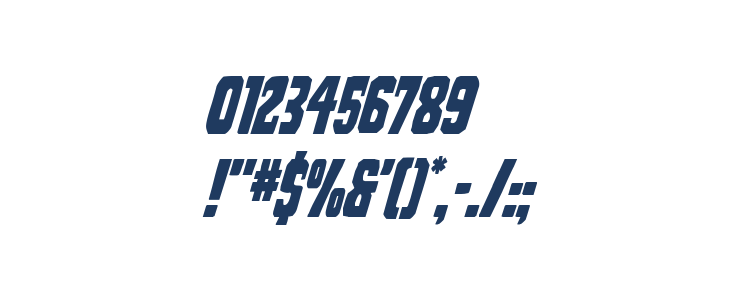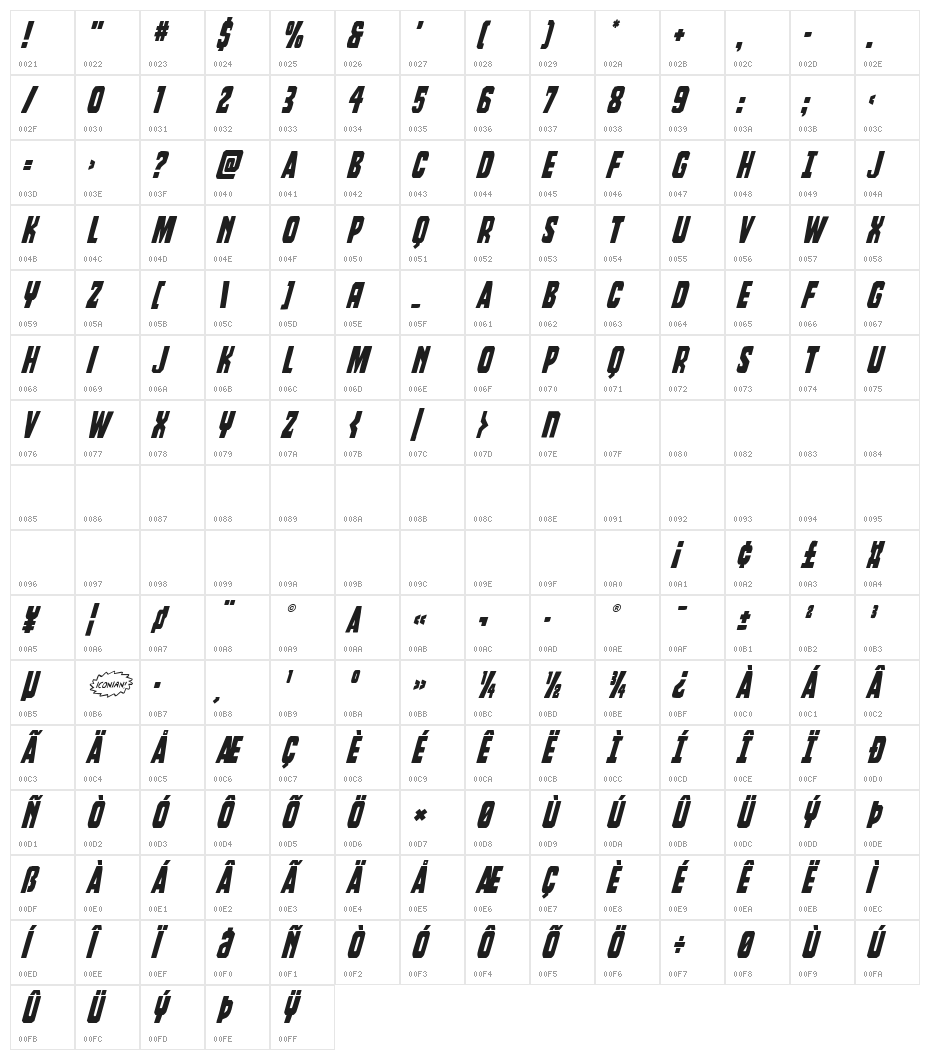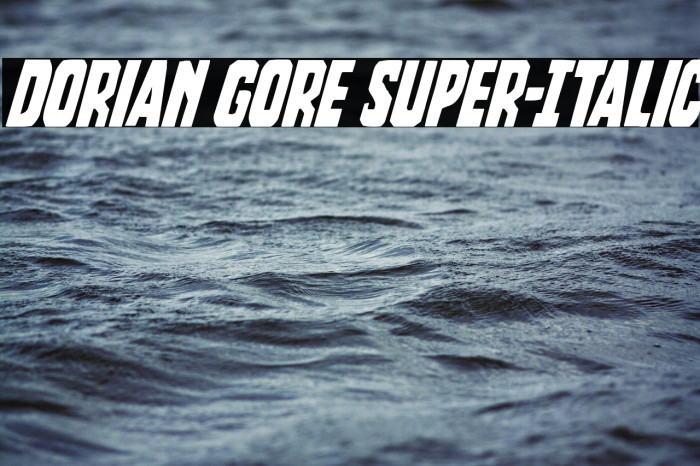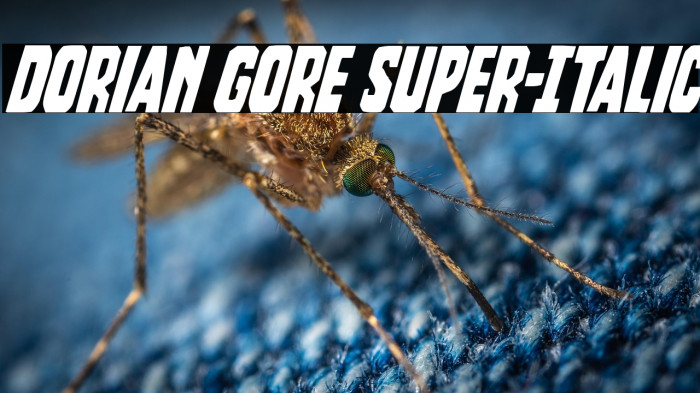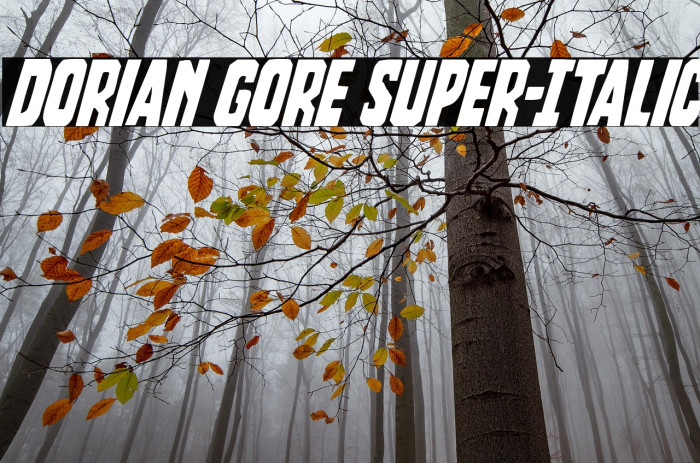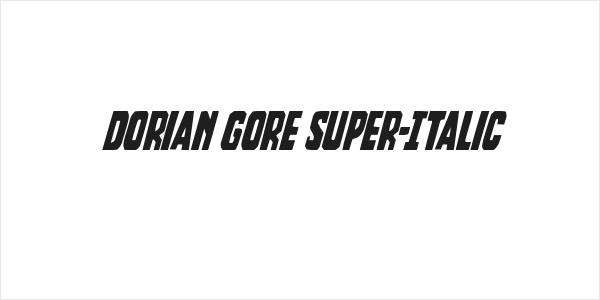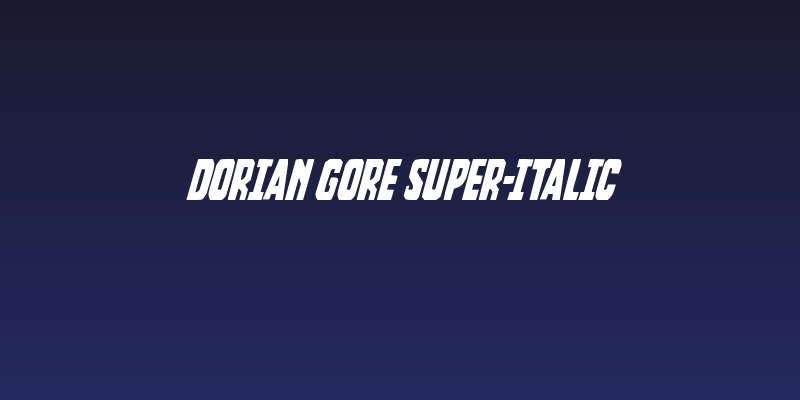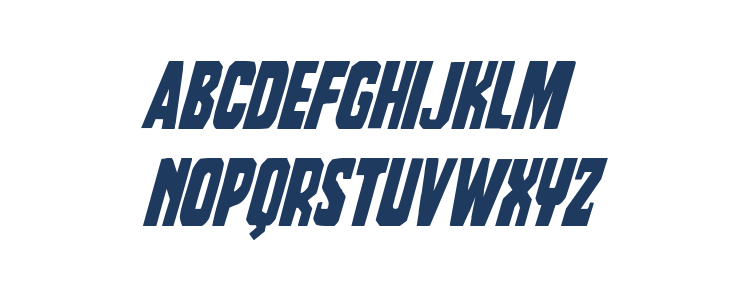
Dorian Gore Super-Italic Font
Dorian Gore Super-Italic Description
This font features a bold and dynamic style with a strong italic slant, giving it a sense of motion and energy. The characters are thick and robust, with sharp angles and a slightly condensed form that enhances its impactful appearance. The uppercase and lowercase letters maintain a consistent style, while the numerals and special characters complement the overall design. The font's boldness and slant make it ideal for attention-grabbing headlines and statements.